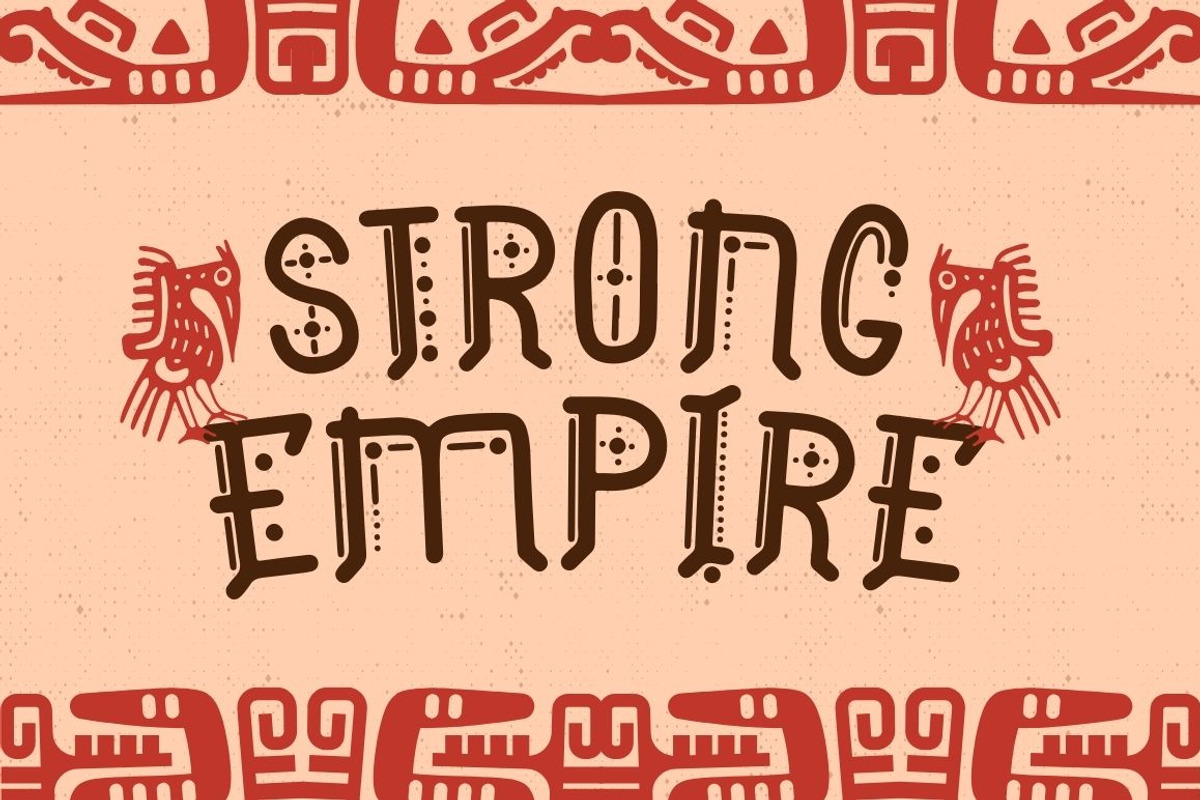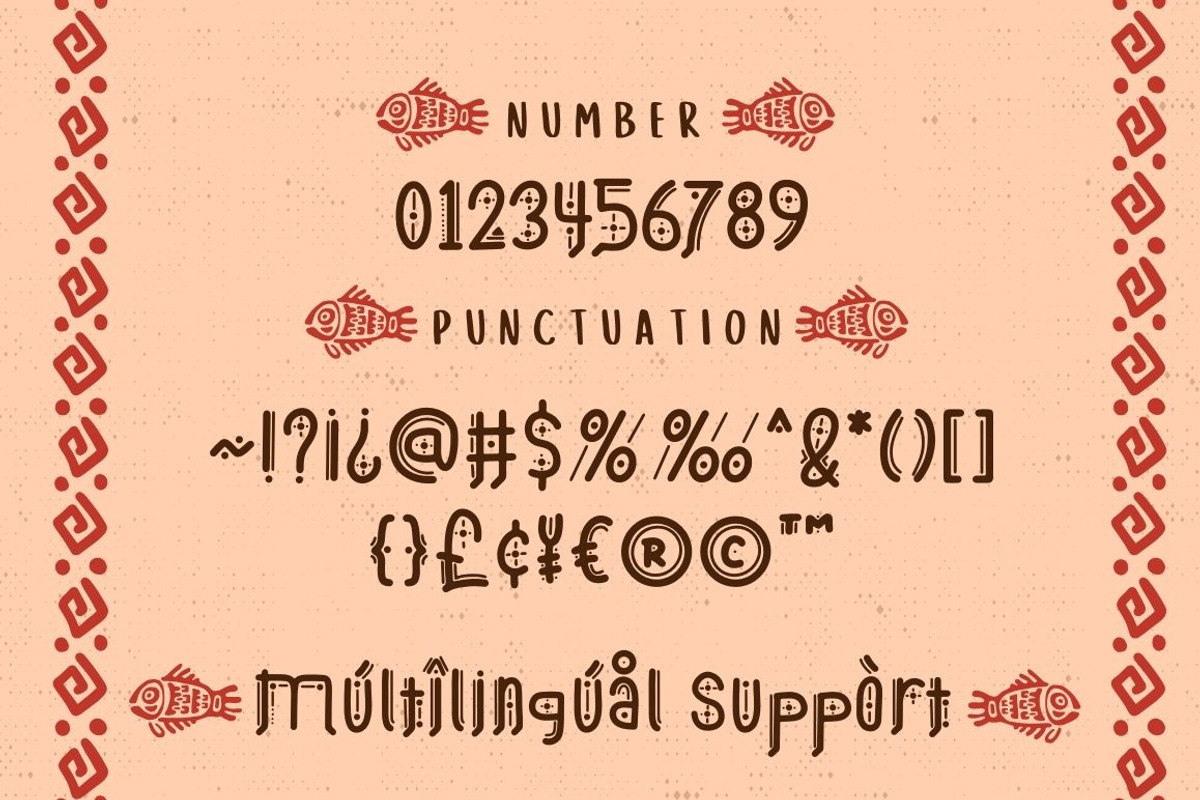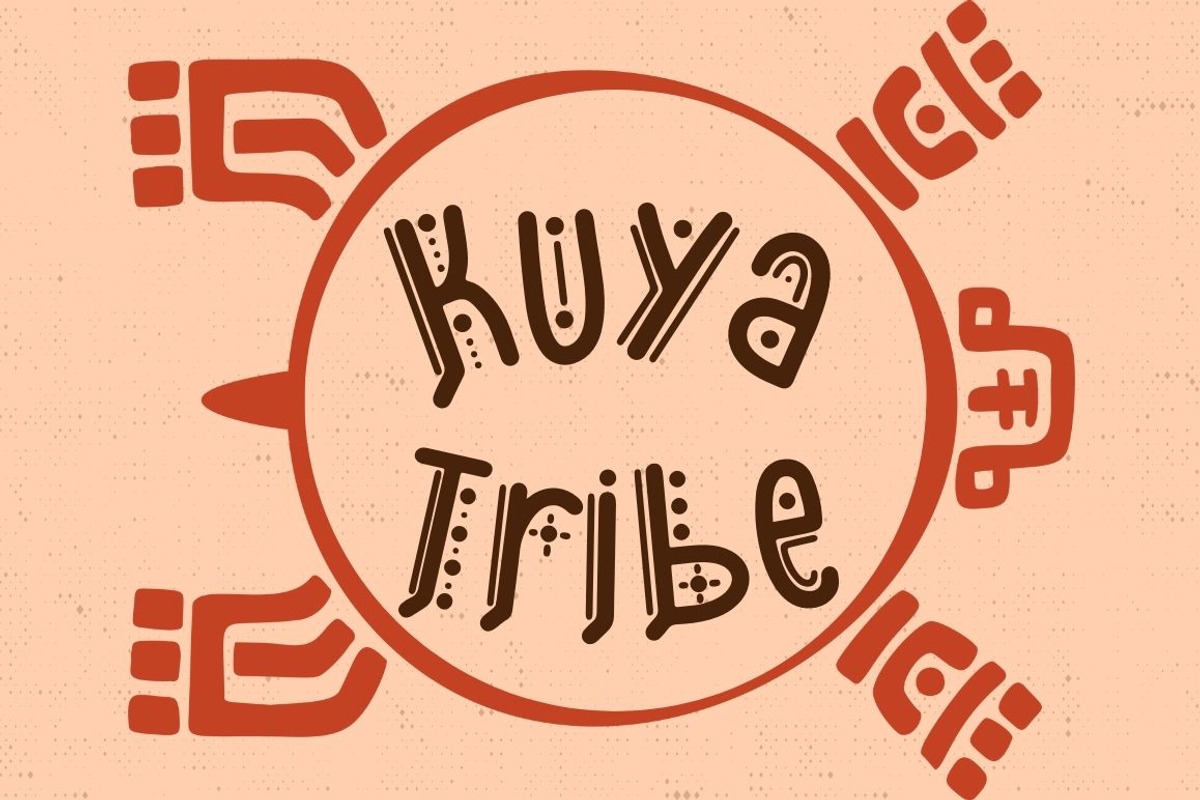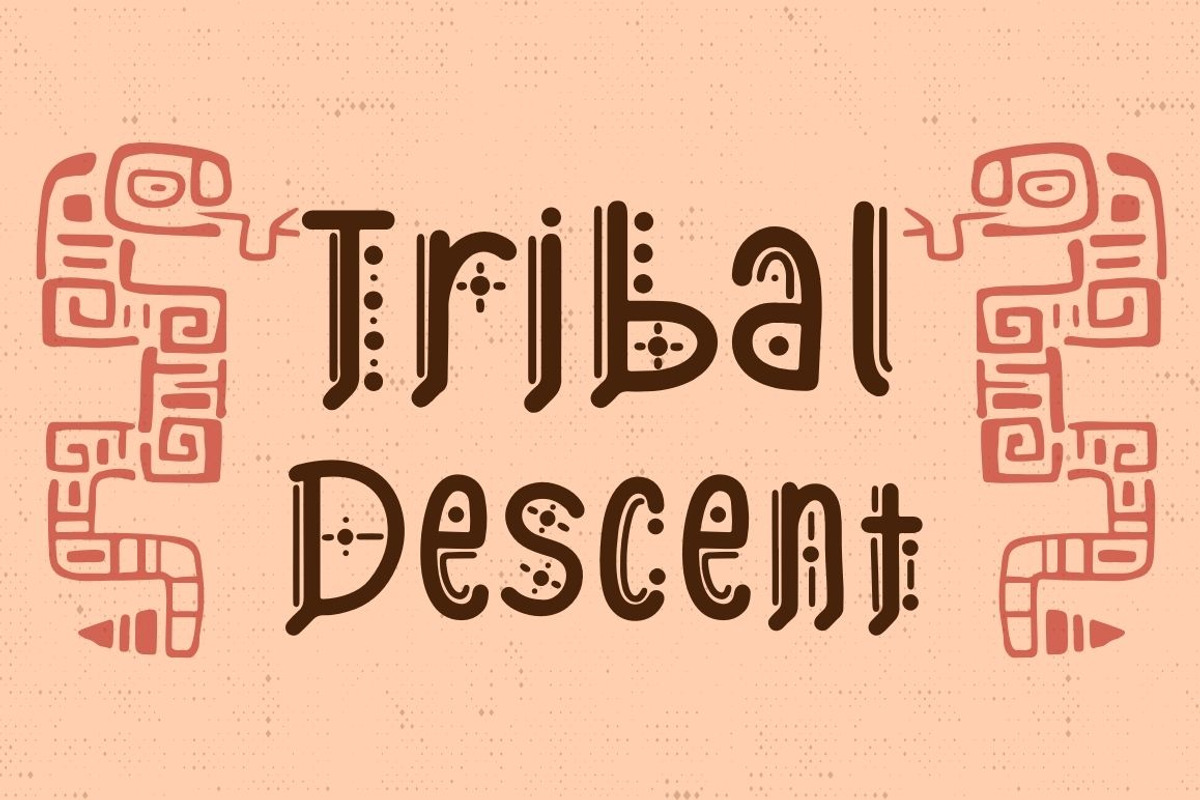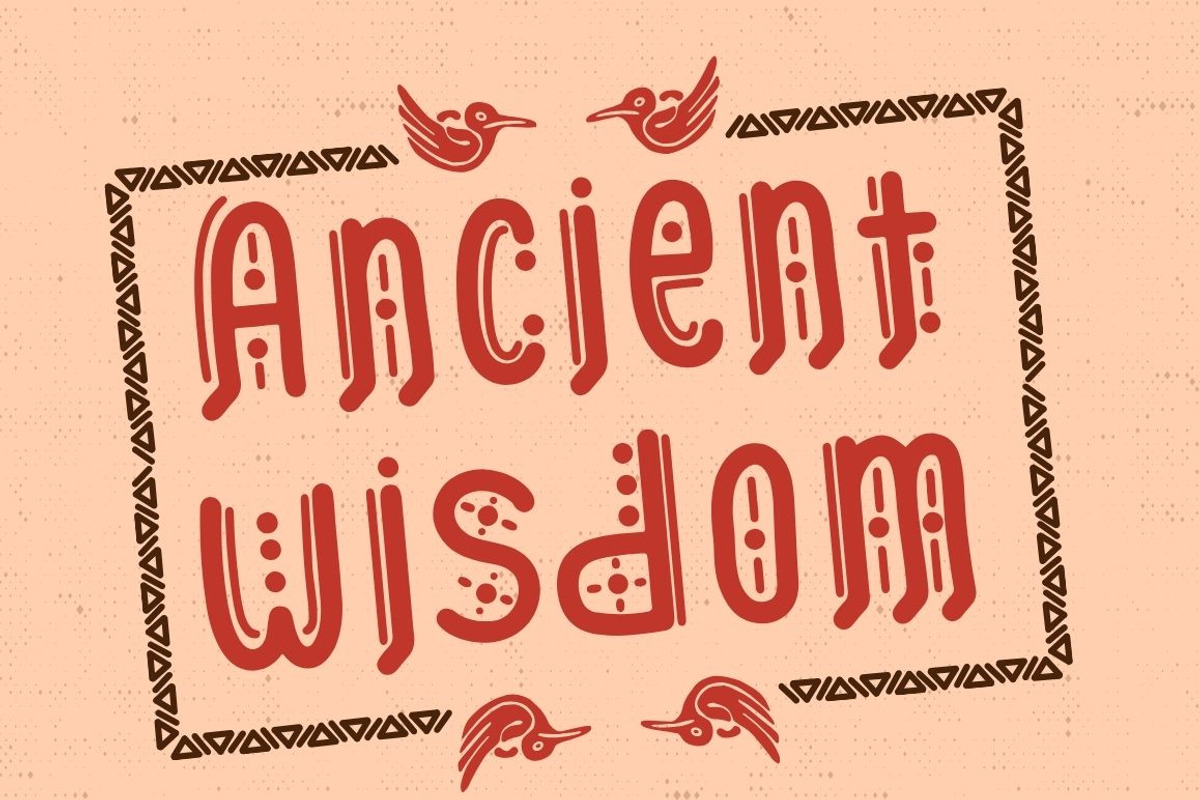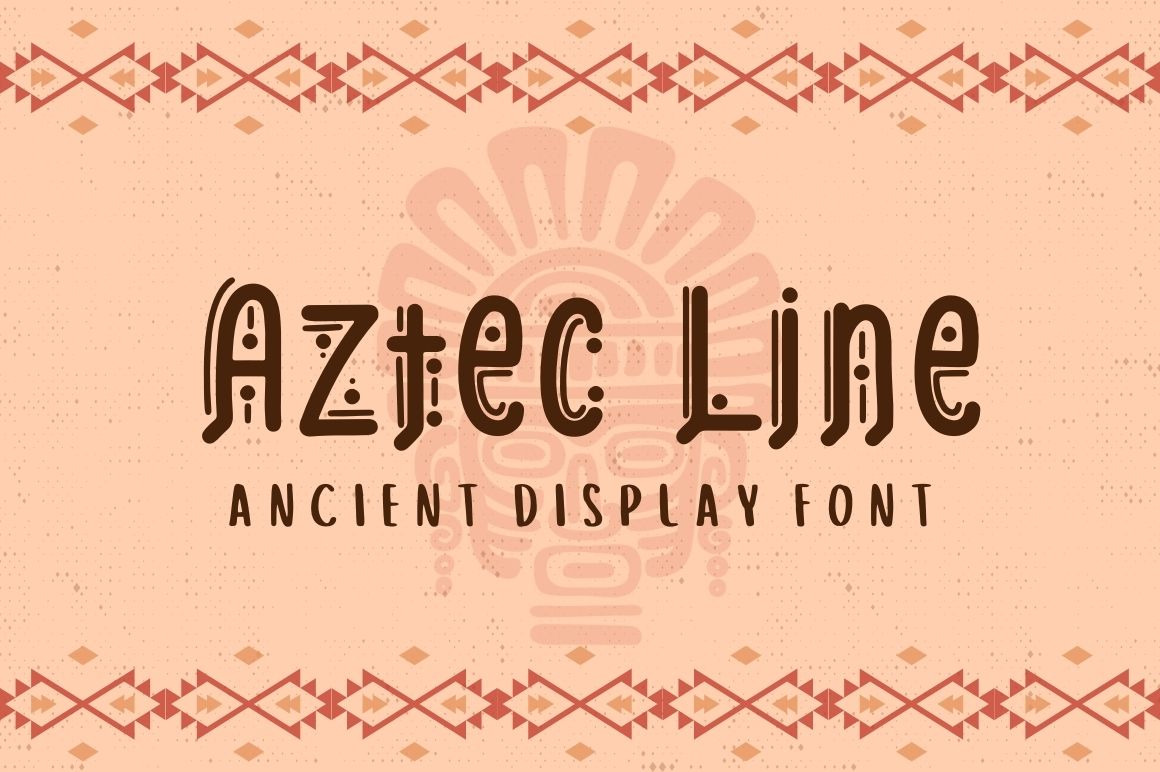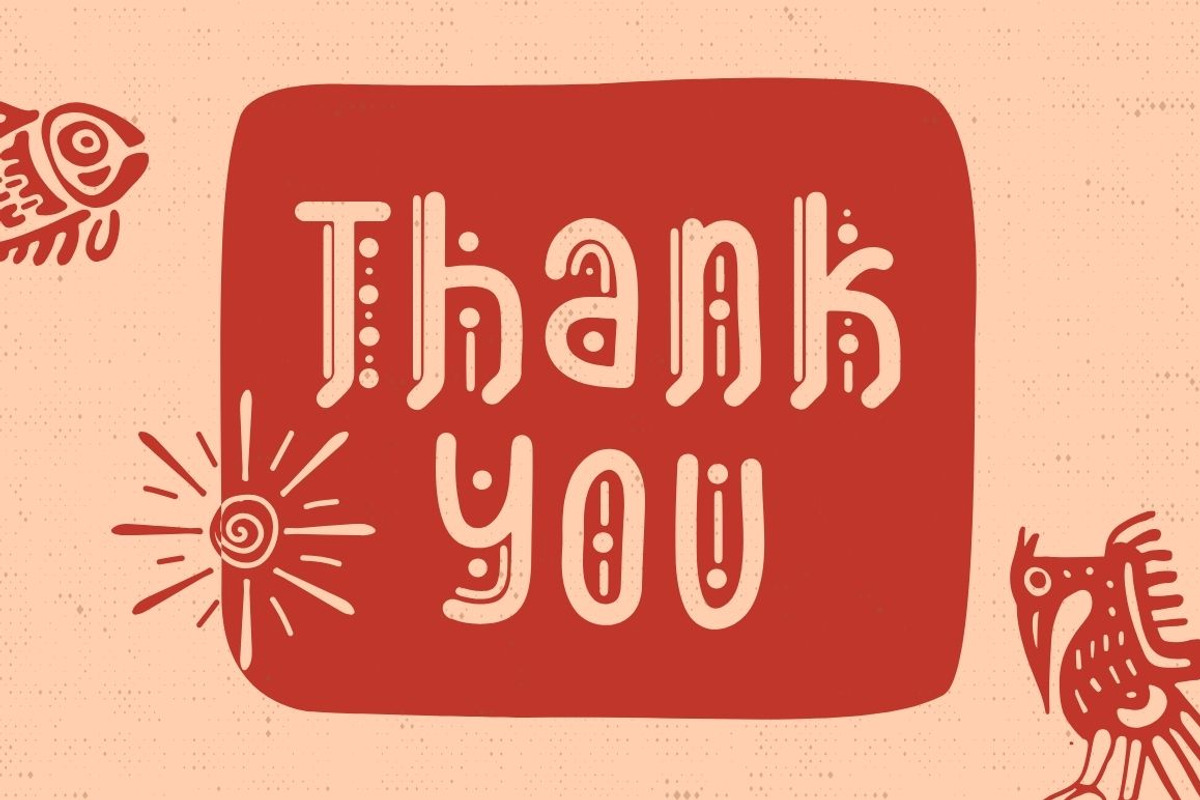
Aztec Line – Ancient Display Font
Step into the grandeur of ancient civilizations with Aztec Line, a striking ancient display font inspired by the rich artistry of the Aztec culture.
Perfect for historical branding, adventure posters, tribal-themed merchandise, museum exhibits, and epic game designs, Aztec Line brings a sense of power, tradition, and untamed spirit to your typography.